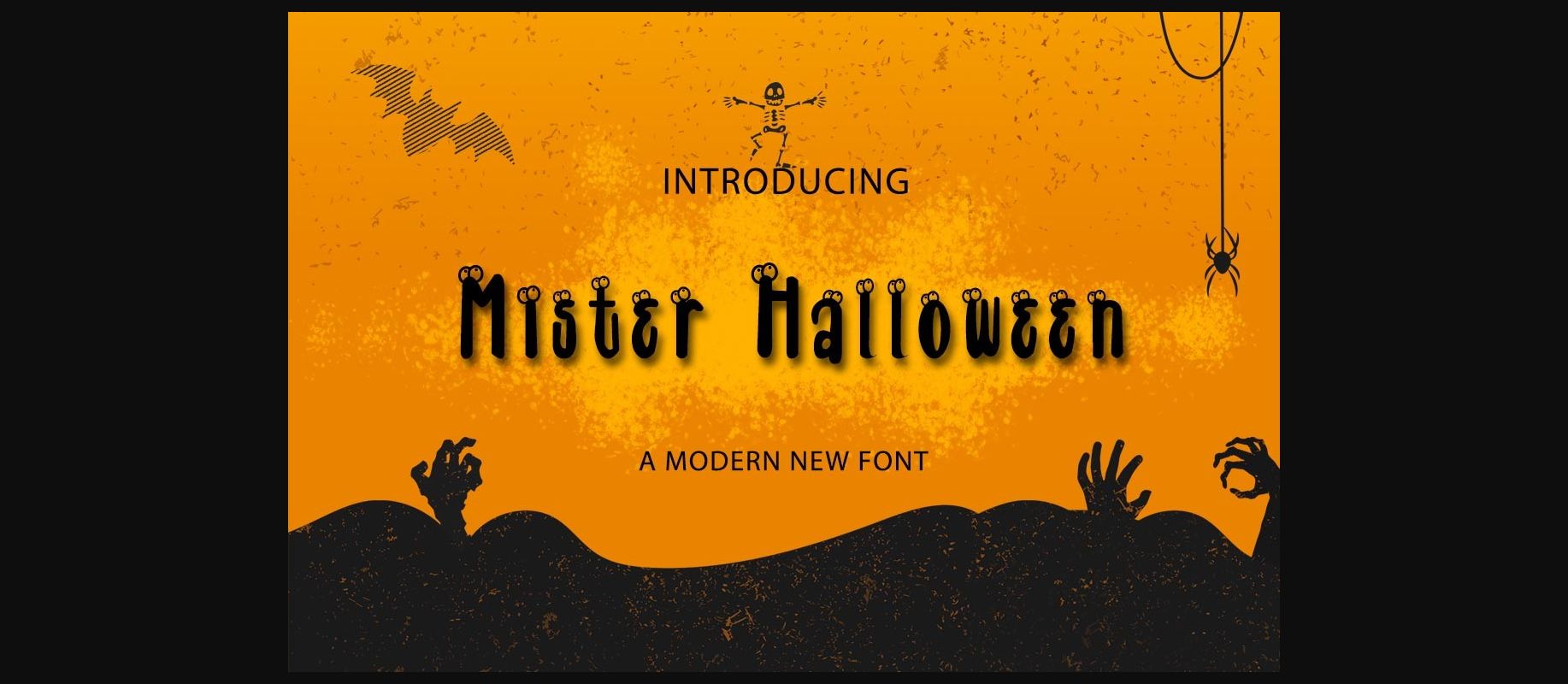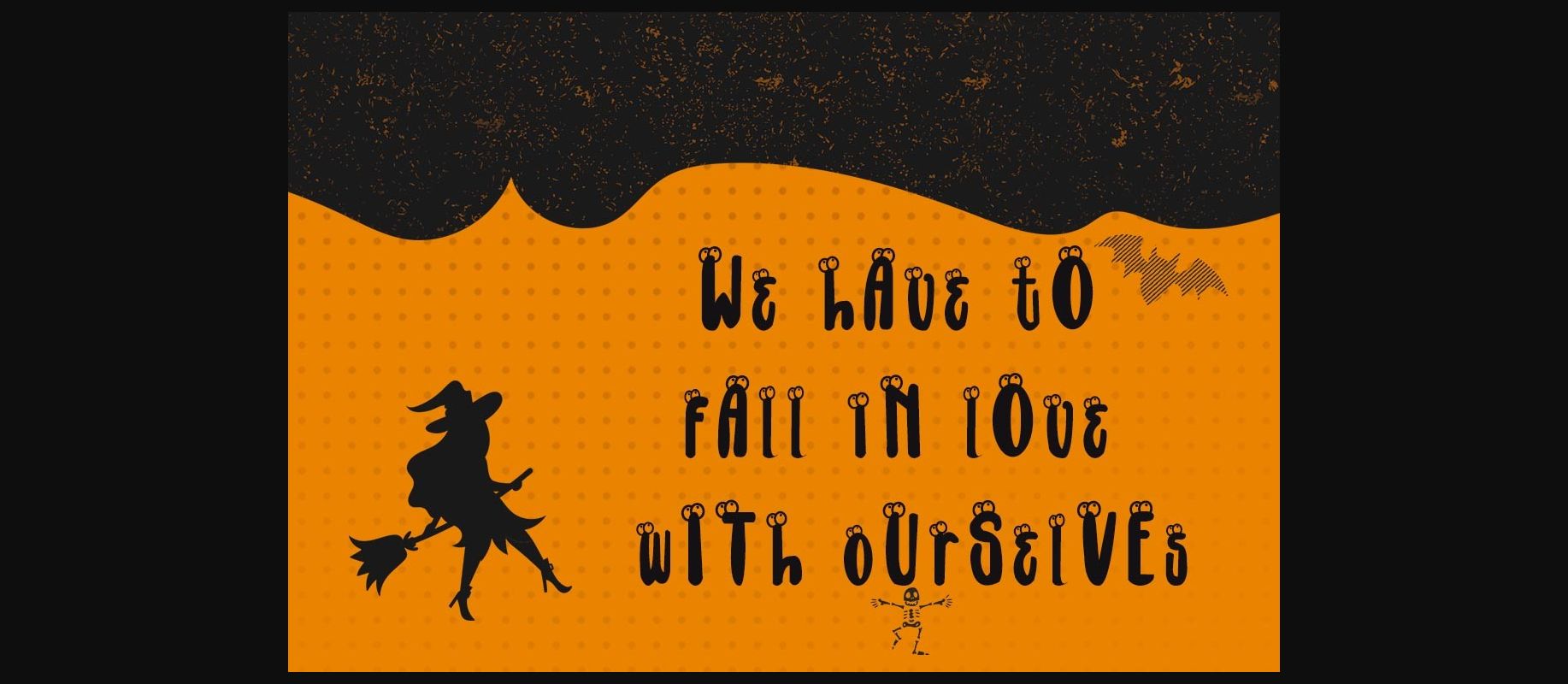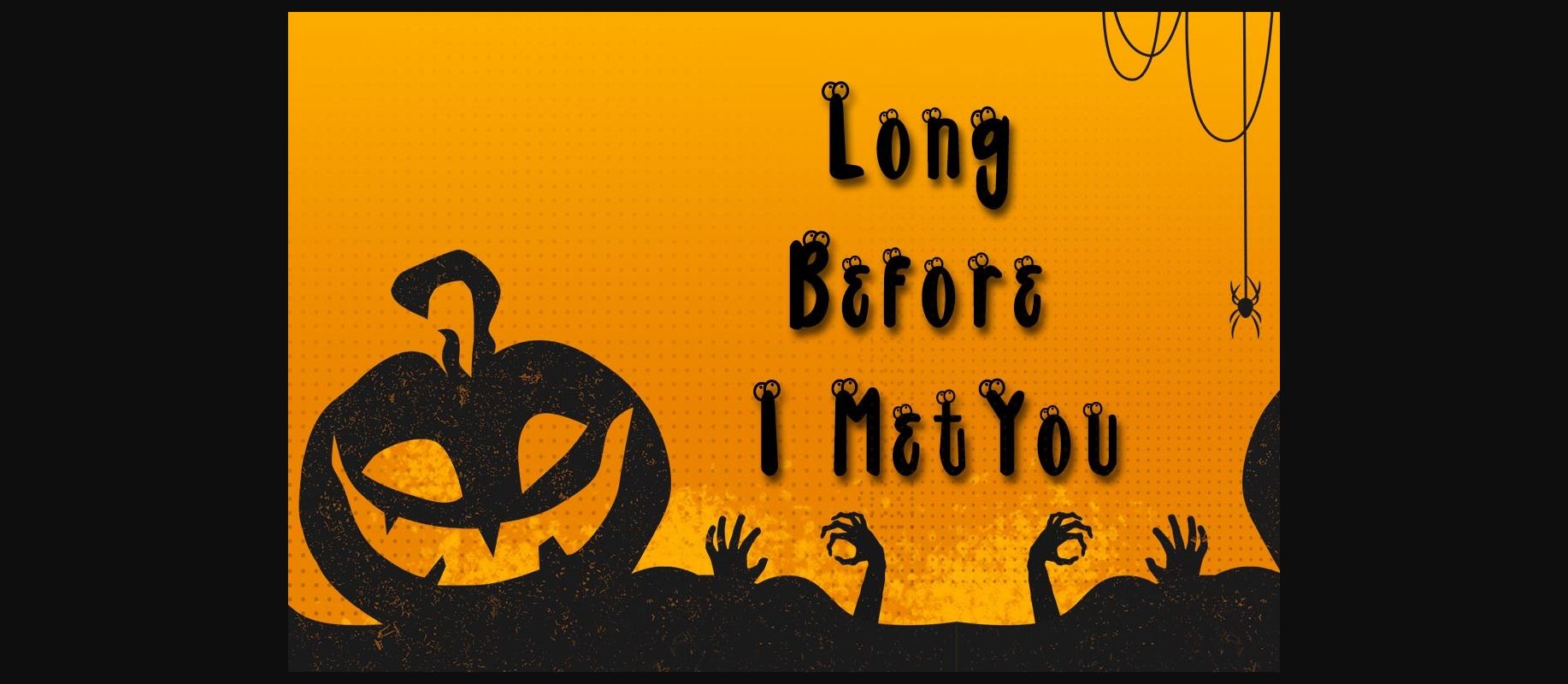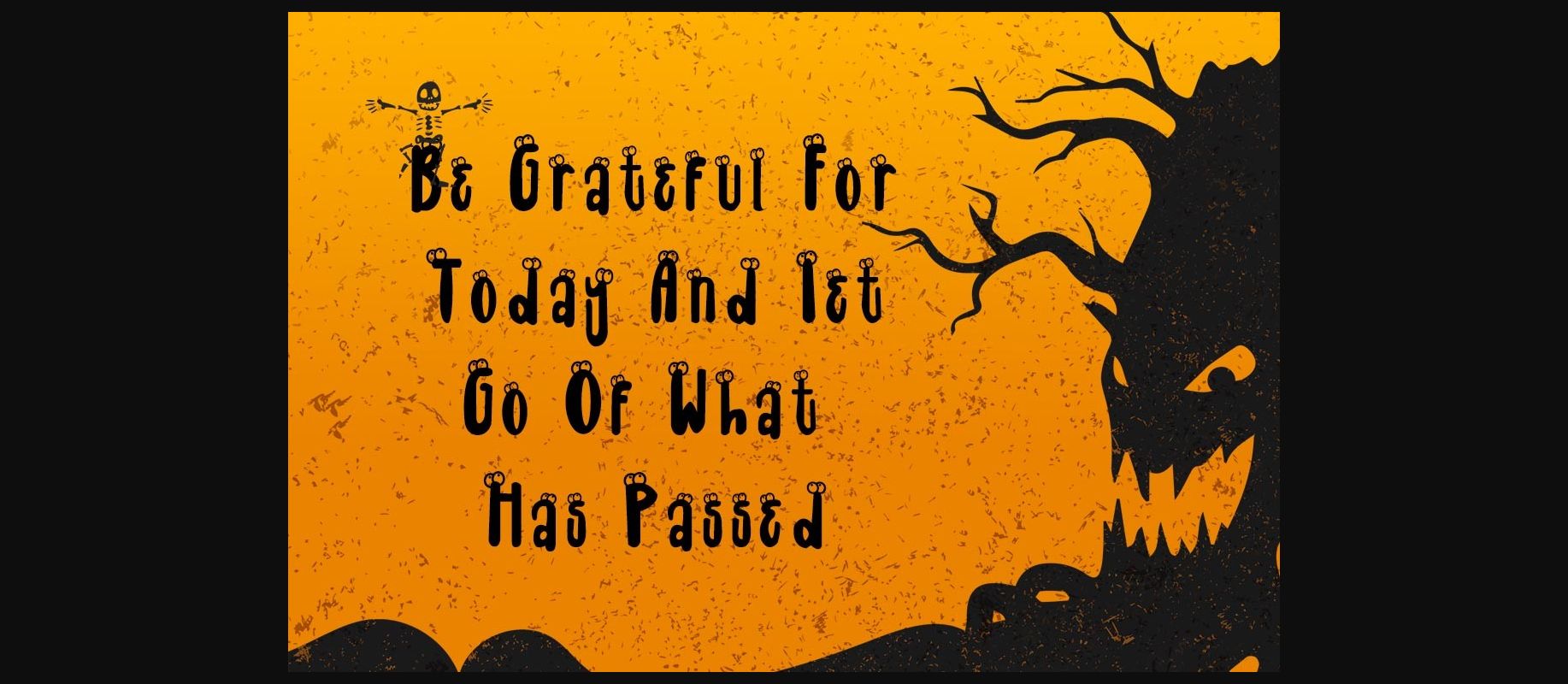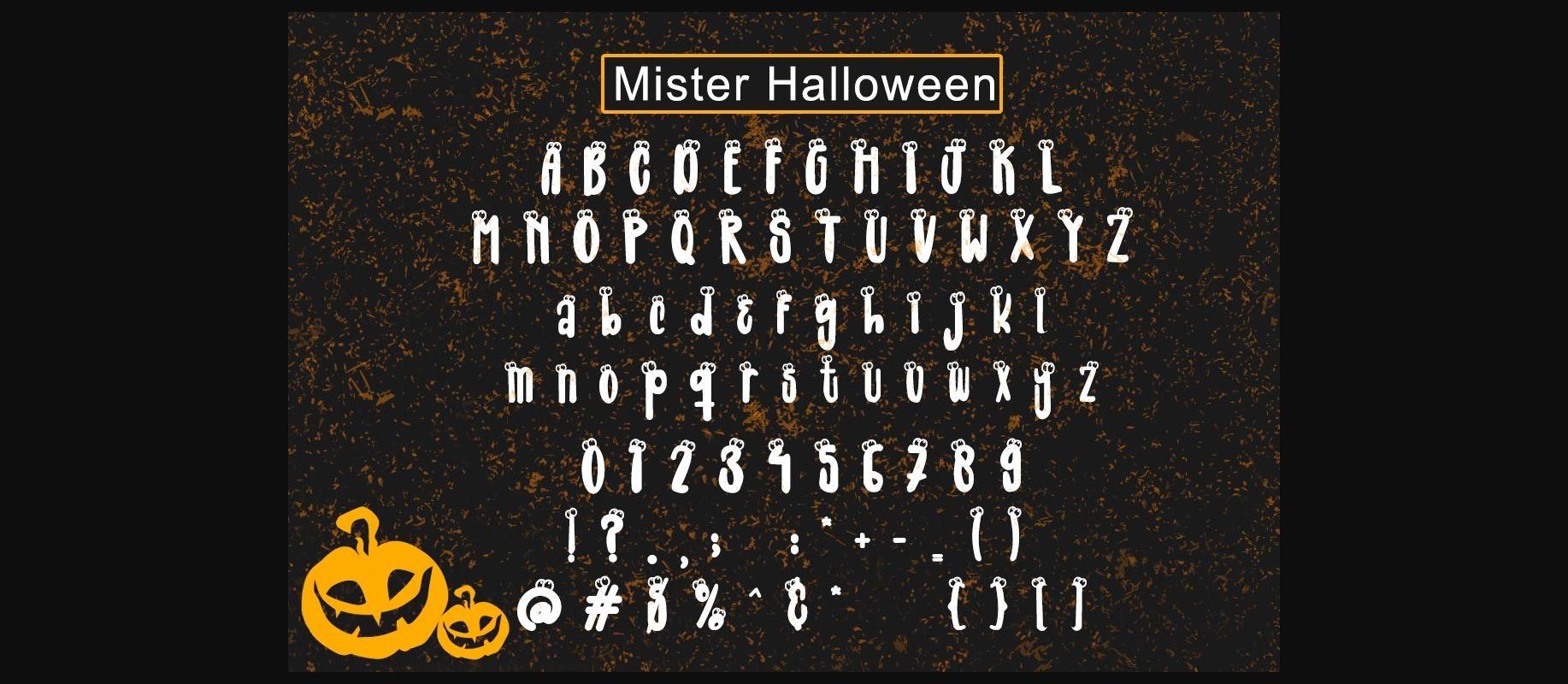
Mister Halloween is a fun Halloween font. Is exactly what you would expect to see on a poster or merchandise designed for Halloween. Also is great for logo design, posters, and making statements in your designs.